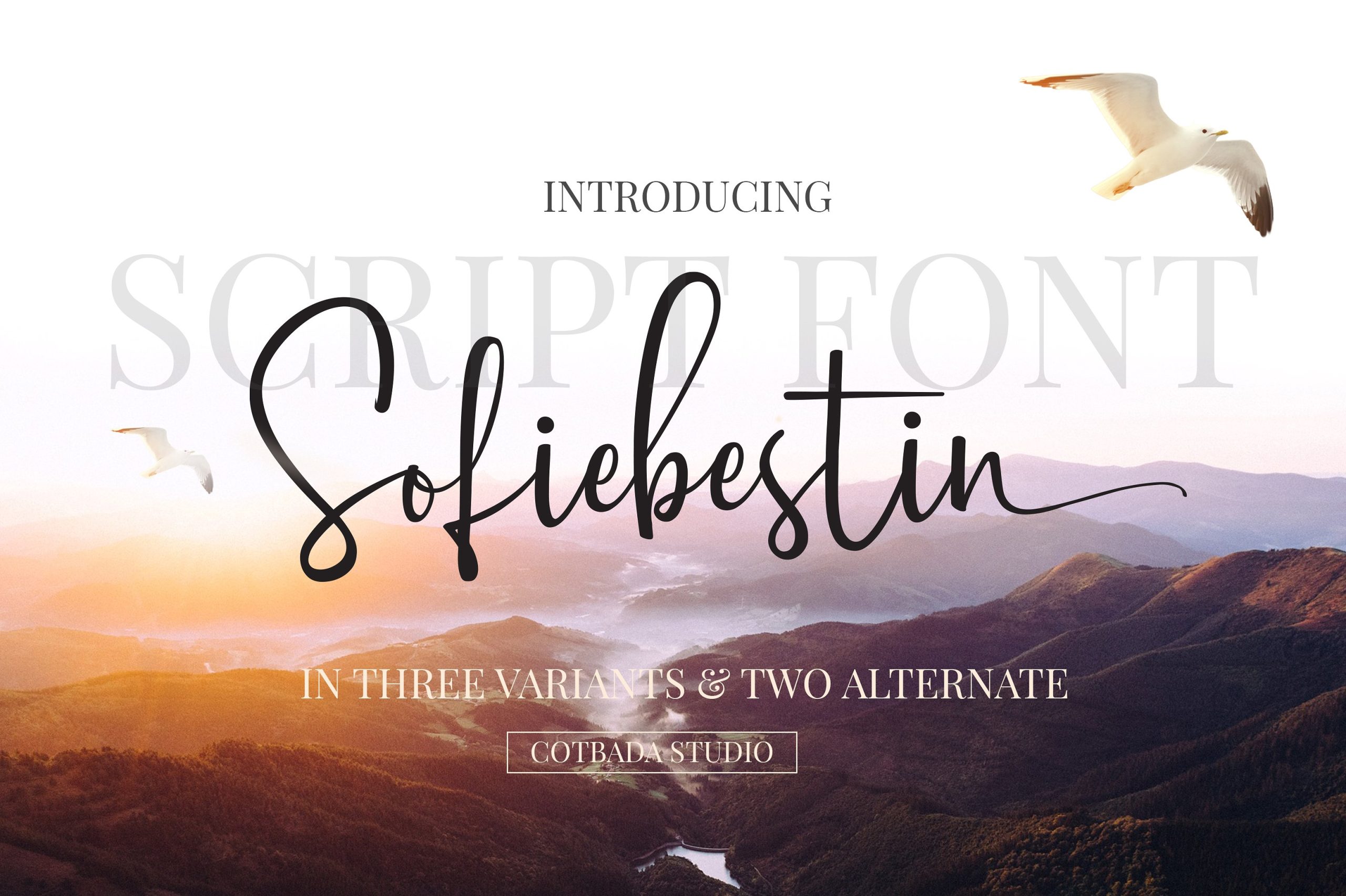
Sofiebestin Script Font
Introducing Sofiebestin – an ultimate handwriting script font. It is designed and shared by Cotbada_studio. Sofiebestin Font is a unique, cool and modern handwritten font. It’s hand look style makes it perfect for use in all your design projects be it logos, signatures, labels, packaging design, blog headlines.